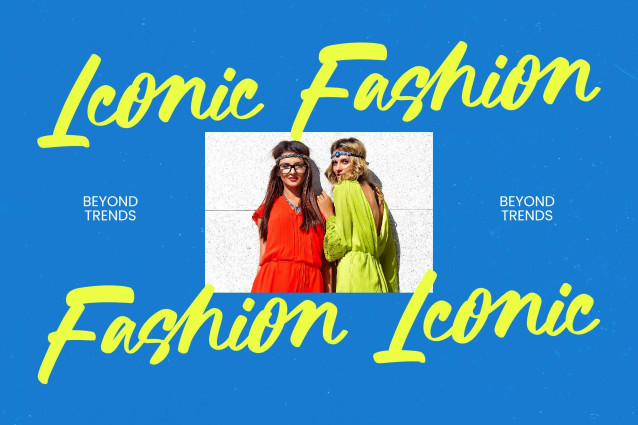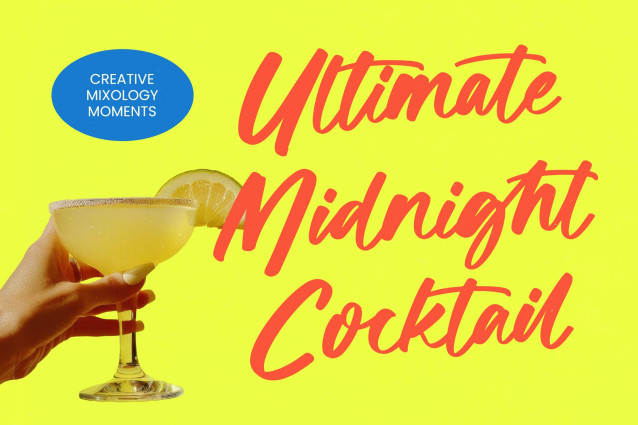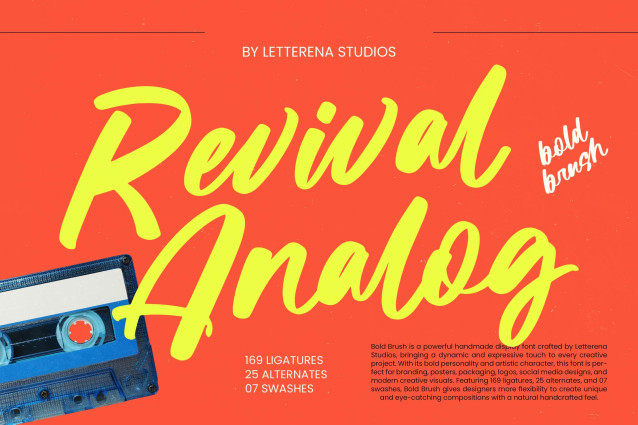
Revival Analog – Bold Brush Font
Revival Analog – Bold Brush is a powerhouse display typeface characterized by its organic brush strokes and high-octane energy. Crafted by Letterena Studios, this font captures a modern-vintage aesthetic that feels both nostalgic and cutting-edge. It is designed to inject bold personality and a sense of movement into any layout, ensuring your message is never overlooked.
Elevate your brand identity with a professional tool specifically engineered for impactful visual storytelling across diverse media. Revival Analog – Bold Brush is the perfect choice for lifestyle branding, high-end packaging, and cinematic poster designs. Its expressive flourishes and hand-drawn texture make it ideal for logos, fashion editorials, and dynamic social media graphics where a human touch is essential for engagement.